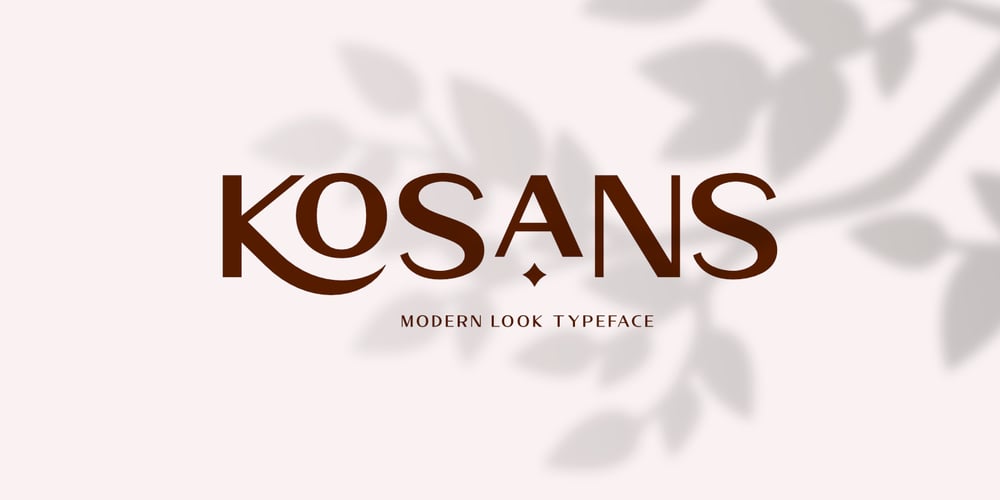
Kosans
Kosans font
Kosans Font Family was designed by Prio Nurokhim Aji and published by Prioritype. Kosans contains 1 styles and family package options. IntroducingKosans – Modern Look TypefaceIt is a modern and classic look font that has beautiful characters in it that makes this font look simple but still classy. You can apply it to your design projects such as logos, business cards, brands, social media posts, quotes and much more which you can make with this great item for any design!Features:-Uppercase & Lowercase ( All Caps )-Numeral-Punctuation-Multilingual-Opentype Features & PUA EncodedMultilingual contained:Afrikaans, Albanian, Asu, Basque, Bemba, Bena, Breton, Catalan, Chiga, Cornish, Danish, Dutch, English, Estonian, Filipino, Finnish, French, Friulian, Galician, German, Gusii, Indonesian, Irish, Italian, Kabuverdianu, Kalenjin, Kinyarwanda, Luo, Luxembourgish, Luyia, Machame, Makhuwa-Meetto, Makonde, Malagasy, Manx, Morisyen, North Ndebele, Norwegian Bokmål, Norwegian Nynorsk, Nyankole, Oromo, Portuguese, Quechua, Romansh, Rombo, Rundi, Rwa, Samburu, Sango, Sangu, Scottish Gaelic, Sena, Shambala, Shona, Soga, Somali, Spanish, Swahili, Swedish, Swiss German, Taita, Teso, Uzbek (Latin), Volapük, Vunjo, Zulu.Note: Use a program that supports the Opentype features and the glyph panel is available, so you can see the various alternative characters available. Examples of programs such as Adobe Illustrator, Corel Draw or Affinity Designer.